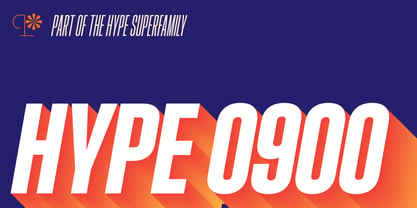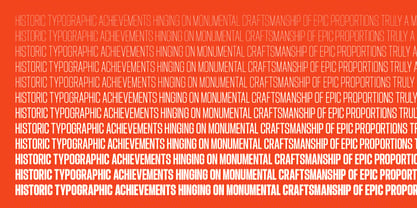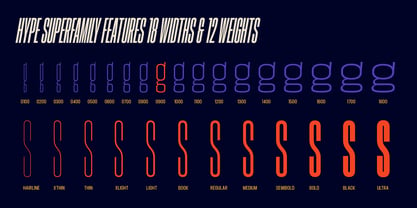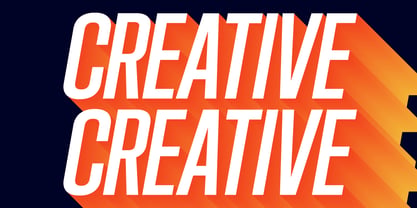
Hype 0900
Die Schriftfamilie Hype 0900 wurde von Neil Summerour entworfen und von Positype veröffentlicht. Hype 0900 enthält 24 Stile. Mehr über diese Familie
Hype lives up to its name. An energetic attempt to blow past previous sans’ descriptive words of massive, large, extensive, super and others. Hype transcends the everyday marketing terms and rests solely atop them all with a jaw-dropping current offering of 432 fonts that spans 18 widths and 12 weights. Insert a long pause and mic drop here, because nothing compares.
Hype’s bombastic approach meant supplying everything it could within each typeface: including small caps, yes small caps, a full numeral set that includes inferiors and superiors, super- and subscripts, full fraction support, case-sensitive forms, stylistic alternate letterforms, and more while touting a full Western, Central and South Eastern European character support.
Embracing a Univers-esque bravado and a willingness to push the envelope, Hype leaves even more room to grow. No corners were cut, no shortcuts taken with a focus on sensible, efficient letter construction and functional reliability that ignores any one classification and instead looks to form an amalgam of classic sans styles influenced by wood type, movie showcards, and urban industrial letterforms.